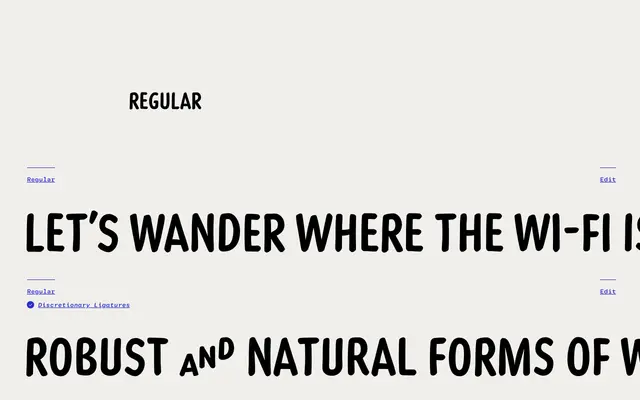
Corsair PE
Rosetta · Ksenya Samarskaya · 2017
A single-weight sans with naturalised, hand-drawn letterforms and built-in randomisation, originally commissioned by Best Made Co. for a rugged, artisanal aesthetic.
Designed by Ksenya Samarskaya, Corsair was originally commissioned by Best Made Co. and built to replicate the idiosyncrasies of handwriting in a functional typeface. Its 2,300-plus glyphs include naturally randomised letter variants that are always active, discretionary ligatures, combinable arrows and Cyrillic isosceles alternate forms, giving set text an honest, worn-in quality without resorting to obvious distress effects. The pan-European scope covers Latin, Cyrillic and Greek, making it usable across packaging, branding and editorial contexts wherever a hand-made feel is called for.
A sans-serif with hand-drawn, informal characteristics; its organic, weathered letterforms and naturally randomised variants place it firmly in the humanist tradition rather than geometric or grotesque.